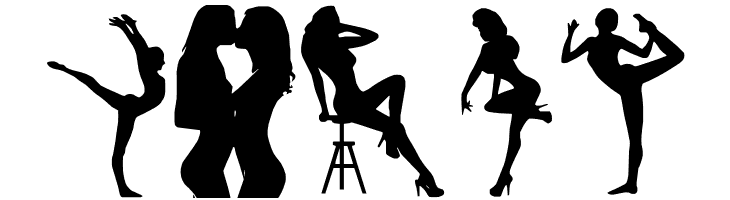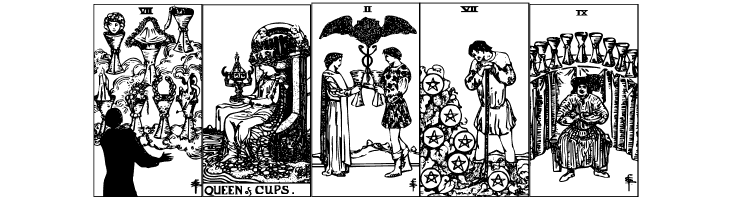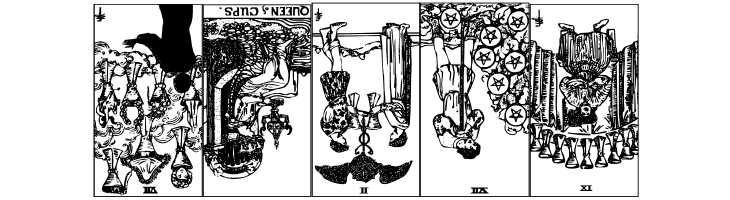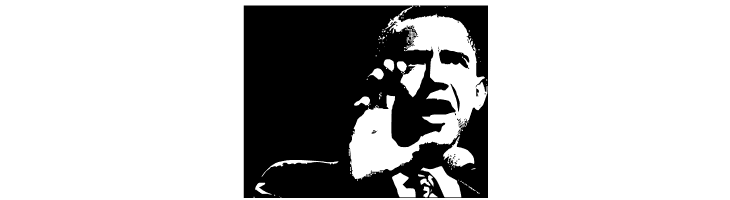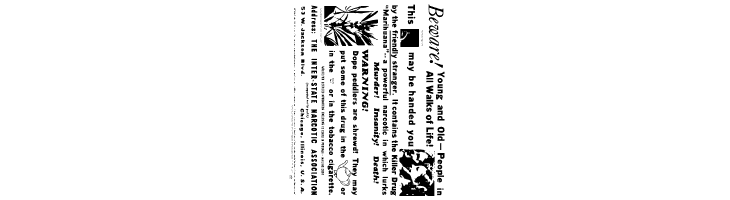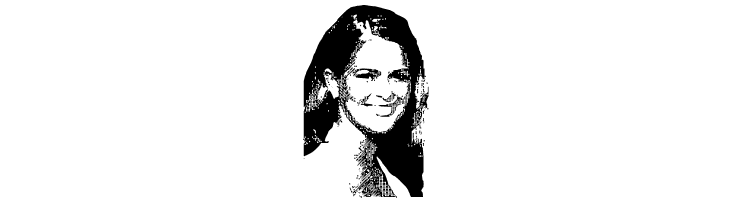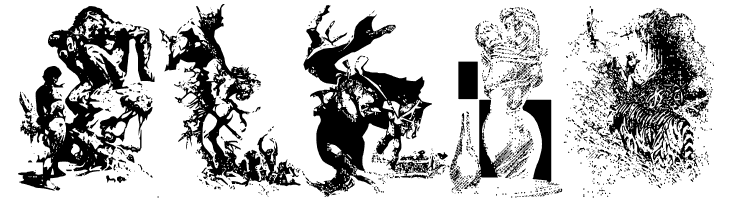
A display font featuring artistic female silhouettes as characters.
A bold, decorative font with a three-dimensional shadow effect and prominent serifs.
A collection of graphic symbols and images, each with unique and intricate designs.
Ornate, vintage serif font with bold, high-contrast strokes and decorative details.
The image does not depict a valid font.
A bold, abstract font with fragmented, geometric characters.
A highly decorative and abstract font with intricate patterns and bold shapes.
Bold, vintage serif font with high contrast and tight spacing.
A decorative font featuring photographic images within each character.
A bold, graphic font with iconic imagery and a propaganda-style aesthetic.
Ornate, vintage serif font with hand-drawn, decorative details.
Ornate uppercase decorative font with Venetian tile-inspired patterns.
An artistic, decorative font with intricate patterns within each character.
Ornate, pattern-filled decorative font with bold contrast.
A display font composed of stylized portraits of women within each character.
A bold, geometric font with a strong, authoritative presence.
The image does not depict a valid font.
An abstract, fragmented font with geometric shapes and chaotic design.
Illustrative, Victorian-inspired decorative font using detailed engravings for each character.
A bold, impactful font with thick strokes and tight spacing, ideal for serious messages.
A decorative font with intricate, storybook-style illustrations within each character.
A decorative, urban-inspired font with intricate designs within each uppercase letter.
A bold, abstract font with fragmented, angular characters.
A bold, abstract font with intricate, symmetrical inkblot designs.
( Fonts by bob istheowl http://luc.devroye.org/bobistheowl.html )
A decorative font with intricate, graffiti-inspired illustrations within each letter.
( Fonts by bob istheowl http://luc.devroye.org/bobistheowl.html )
The image does not depict a valid font.
( Fonts by bob istheowl http://luc.devroye.org/bobistheowl.html )
A decorative, artistic font with intricate designs and bold visuals.
( Fonts by bob istheowl http://luc.devroye.org/bobistheowl.html )
A decorative series of stylized face graphics replacing traditional characters.
( Fonts by bob istheowl http://luc.devroye.org/bobistheowl.html )
Decorative face-based font with exaggerated proportions.
A bold, condensed font with a modern, assertive style, perfect for impactful designs.
Graphic elements and patterns, not a traditional font.
A pictorial dingbat set featuring dramatic fantasy illustrations.